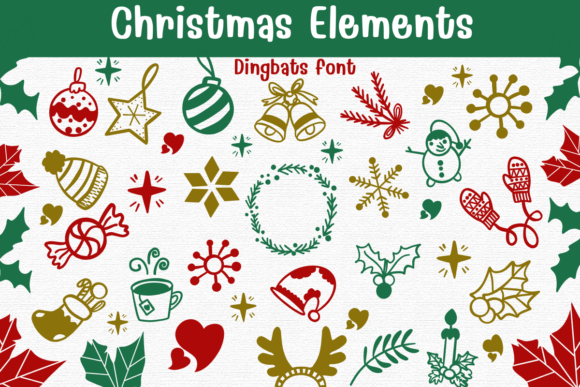
Christmas Elements Font: Add a Festive Touch to Your Creative Projects
Are you looking for a font that can add a festive touch to your creative projects this holiday season? Look no further than Christmas Elements Font! This cute and festive dingbats font is perfect for anyone who wants to spread some holiday cheer into their designs. In this article, we’ll take a closer look at Christmas Elements Font, its features, and how you can use it to make your projects merry and bright.
What is Christmas Elements Font?
Christmas Elements Font is a dingbats font that features a collection of cute and festive Christmas-themed elements, such as snowflakes, trees, stockings, and more. The font is designed to be easy to use and can be added to any project with just a few clicks. Whether you’re a graphic designer, a small business owner, or just someone who loves to get creative, Christmas Elements Font is a great addition to your font library.
Features of Christmas Elements Font
So, what makes Christmas Elements Font so special? Here are just a few of its features:
- Cute and festive designs: The font features a range of adorable Christmas-themed elements that are sure to bring a smile to anyone’s face.
- Easily scalable: The font is designed to be easily scalable, so you can use it for projects of all sizes, from business cards to billboards.
Ideas for Using Christmas Elements Font
Now that you have Christmas Elements Font, here are some ideas for using it:
- Holiday greeting cards: Use the font to create festive holiday greeting cards for friends and family.
- Social media graphics: Add a festive touch to your social media graphics, such as Facebook posts and Instagram stories.
- Website headers: Use the font to create a festive header for your website or blog.
- Marketing materials: Add a touch of holiday cheer to your marketing materials, such as flyers, brochures, and more.
Tips for Getting the Most Out of Christmas Elements Font
Here are some tips for getting the most out of Christmas Elements Font:
- Experiment with different sizes and colors: Don’t be afraid to try out different sizes and colors to see what works best for your project.
- Combine with other fonts: Try pairing Christmas Elements Font with other fonts to create a unique and eye-catching design.
- Use it sparingly: While the font is festive and fun, it’s best to use it sparingly to avoid overwhelming your design.
Christmas Elements Font is a fun and festive dingbats font that’s perfect for adding a touch of holiday cheer to your creative projects. With its cute and festive designs, ease of use, and compatibility with most design software, it’s a great addition to any font library. Whether you’re a graphic designer, a small business owner, or just someone who loves to get creative, Christmas Elements Font is sure to bring some holiday magic to your designs.